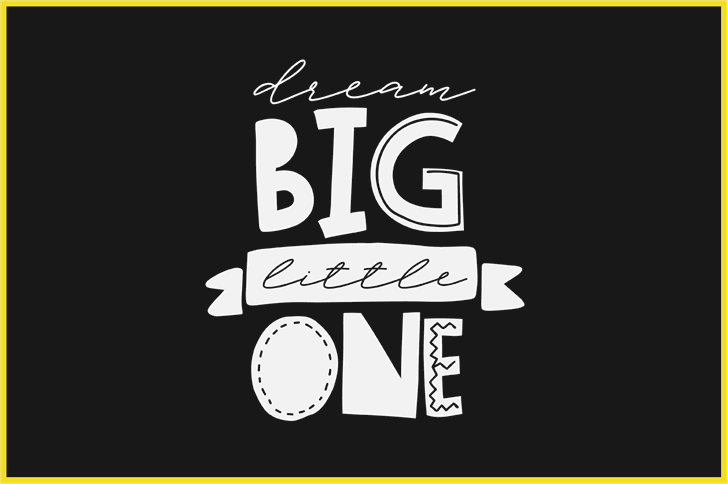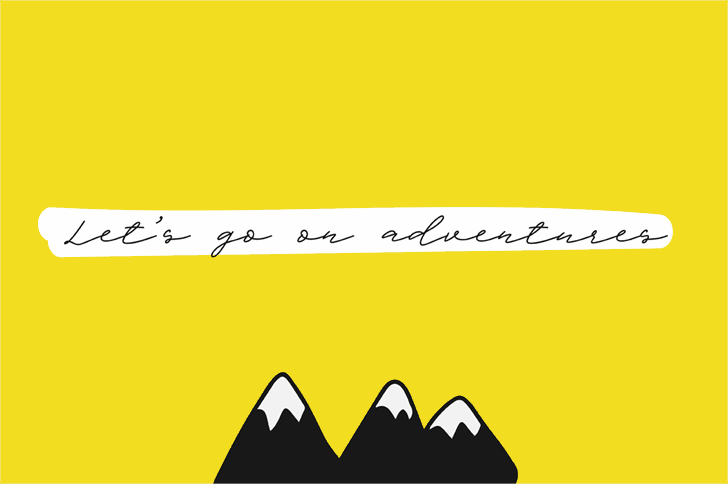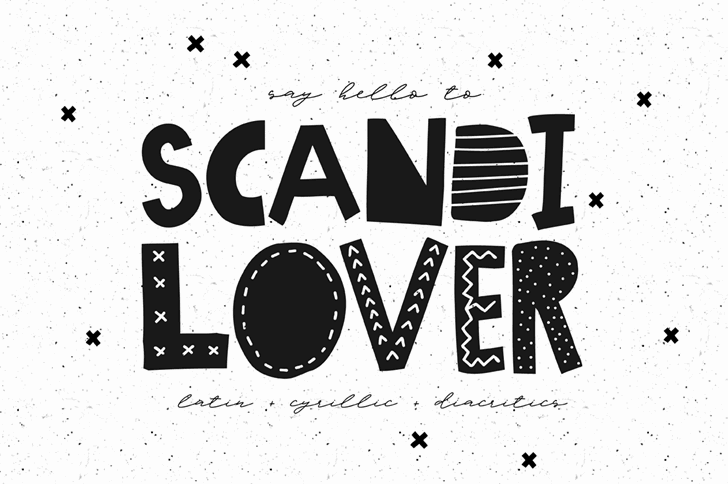
Scandilover Script
Scandilover Script Font
Scandilover Script is one of two fonts from Scandilover Family, which was inspired by monochrome Scandinavian style kid rooms full of handwritten graphics, black and white accessories and prints. Scandilover Script is a thin delicate font which isn’t devoid of playfulness too. Together with contrasting Scandilover they make funny lively combinations. Just try!